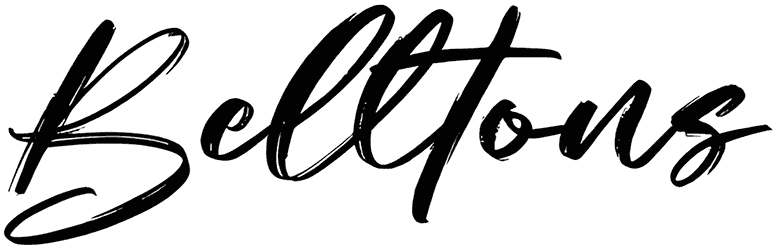
Belltons Font
Do you need a font that is completely natural and brings a stylish flow to your projects? Belltons is the font that brings you not only class and personality, but much more.
This script font has slim, realistic lines that can work well in wedding invitations, greeting cards, and photography projects without numbers. By using this brush font, you can create a romantic feeling and a touch of luxury in your designs.